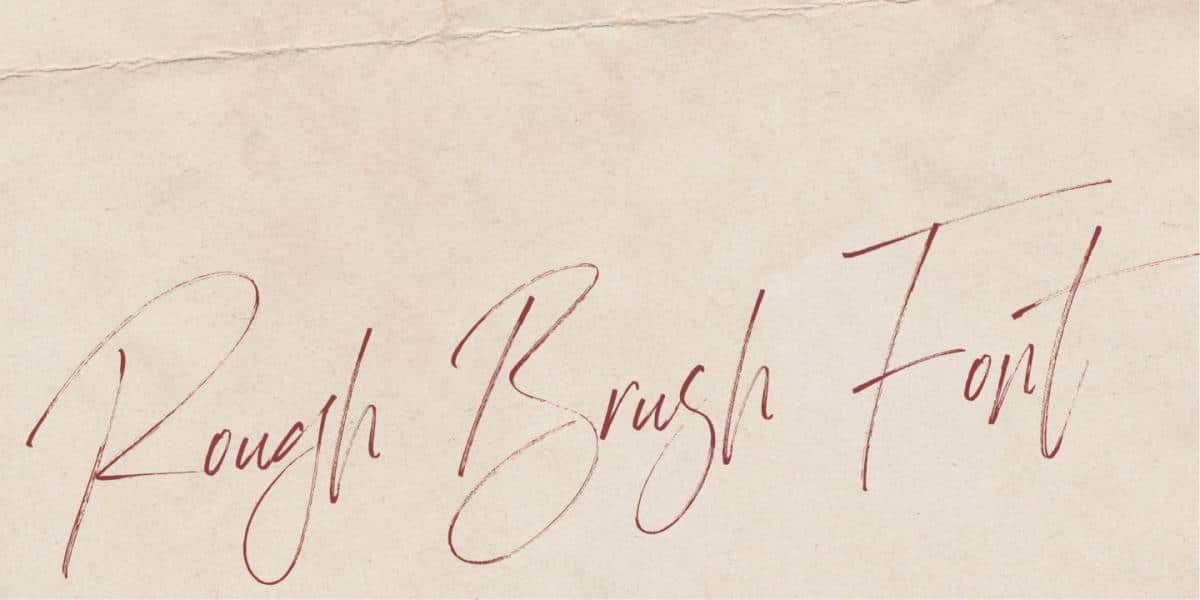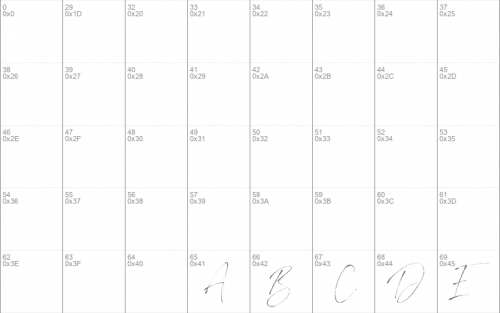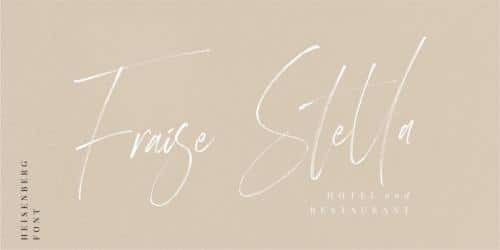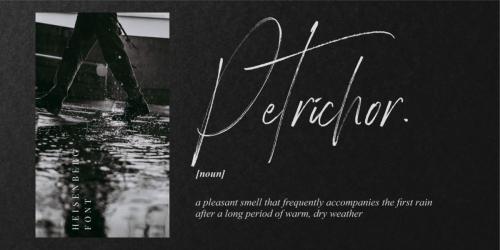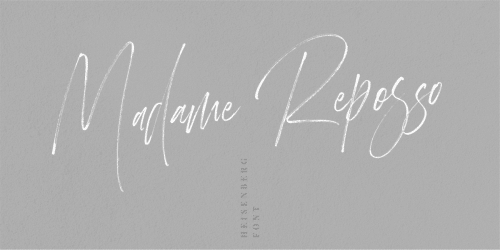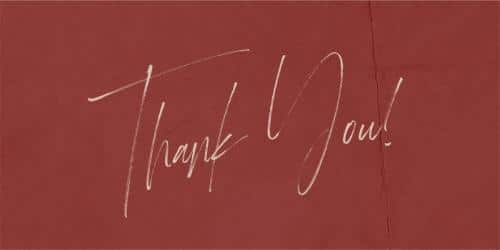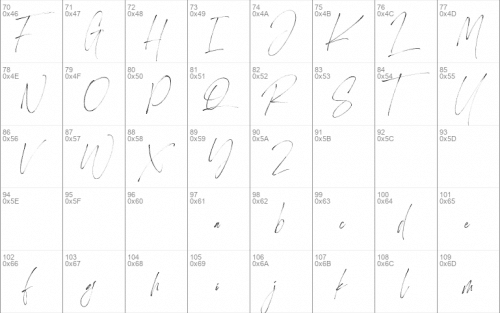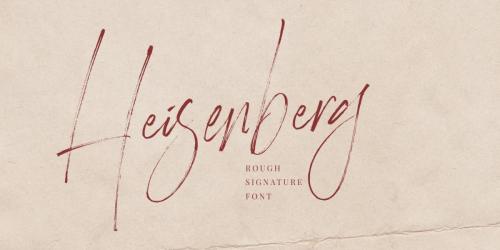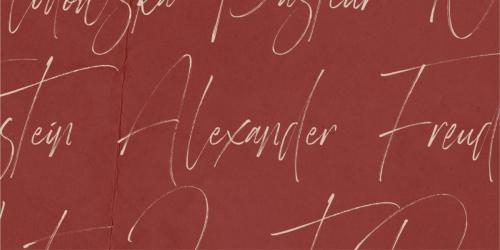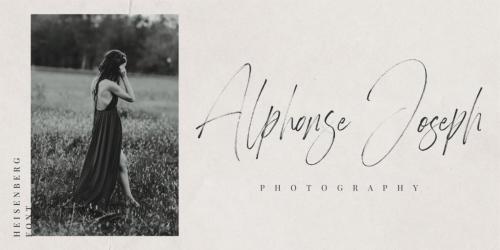
Proudly presenting Heisenberg Rough Signature Font! Heisenberg is a font with wild, natural expressions, yet giving you an elegant impression. This font is handmade, with a spontaneous and free flow.
Heisenberg will be able to fulfill your design needs such as packaging, merchandizing, logs, branding, and many others.